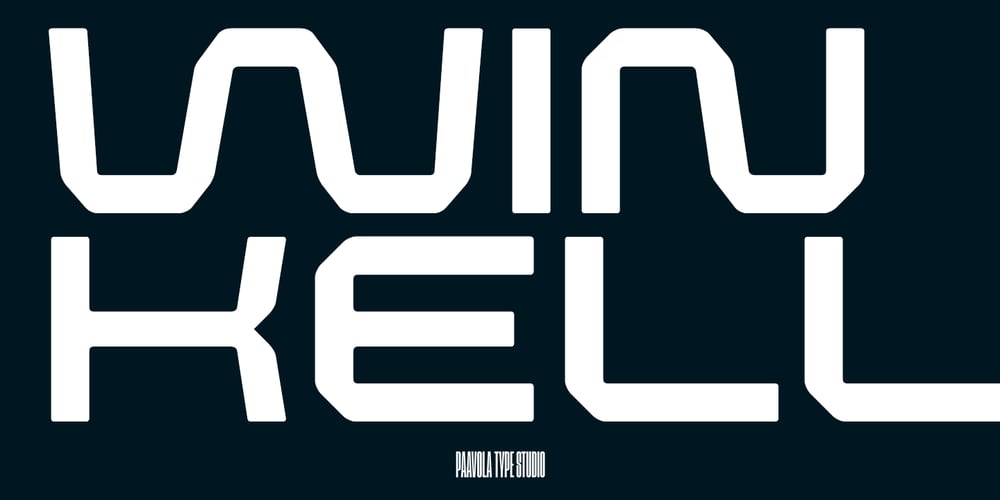
Winkell Font Family was designed by Jani Paavola and published by Paavola Type Studio. Winkell contains 15 styles and family package options. Winkell family is a futuristic all caps four width opentype™ font family of 16 fonts featuring multilanguage support.Winkell is heavily inspired by dystopian futuristic settings in science fiction especially subgenres like cyberpunk and other futuristic visuals. Simple all caps display design based on straight forms connected by 45° rounded angles.Winkell Mix+Match Letters™ system allows you to mix letters from same weight but different widths.